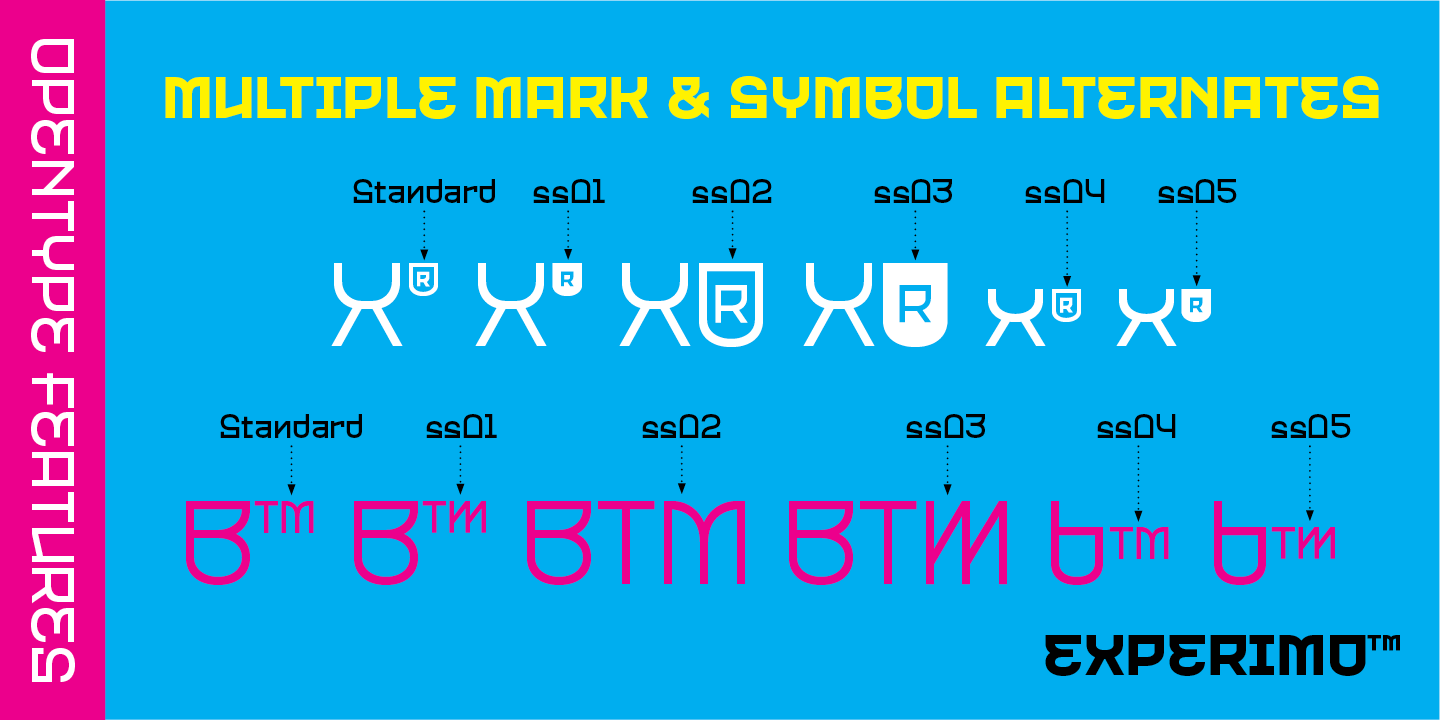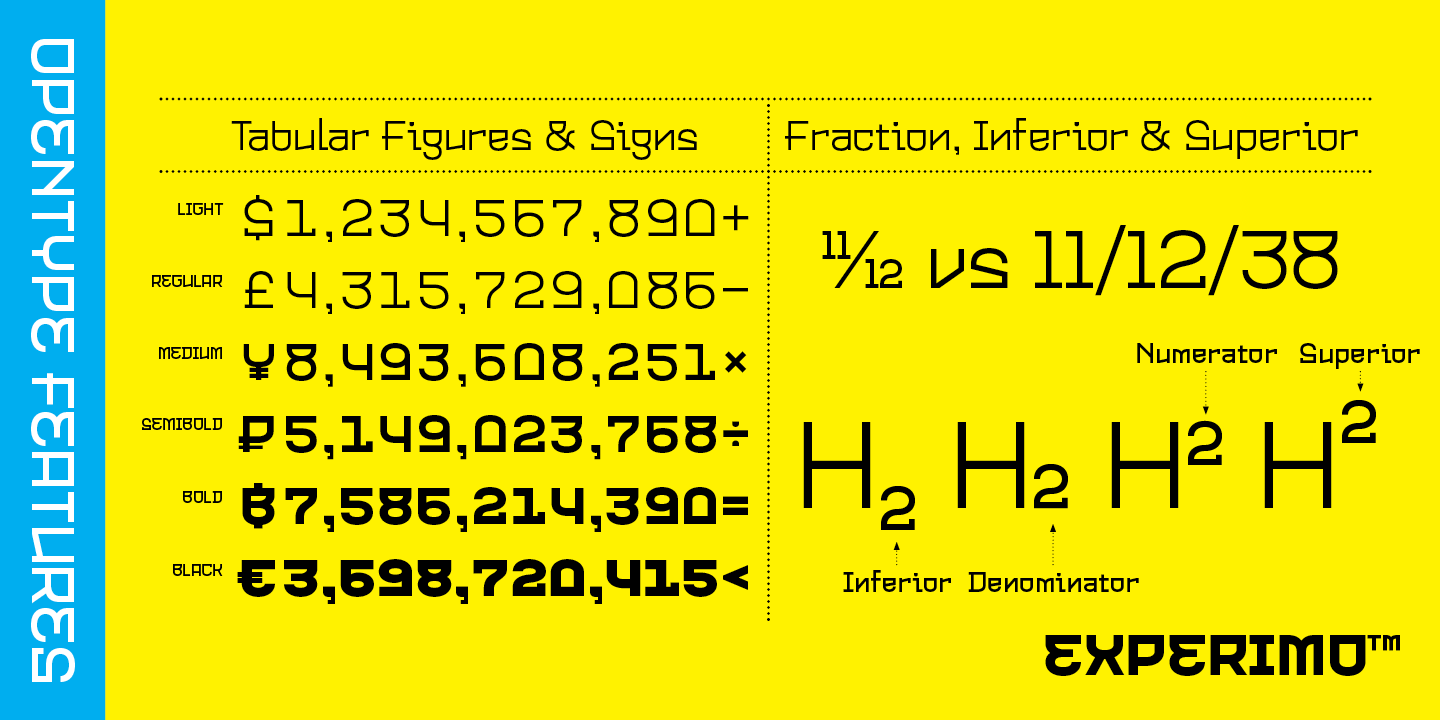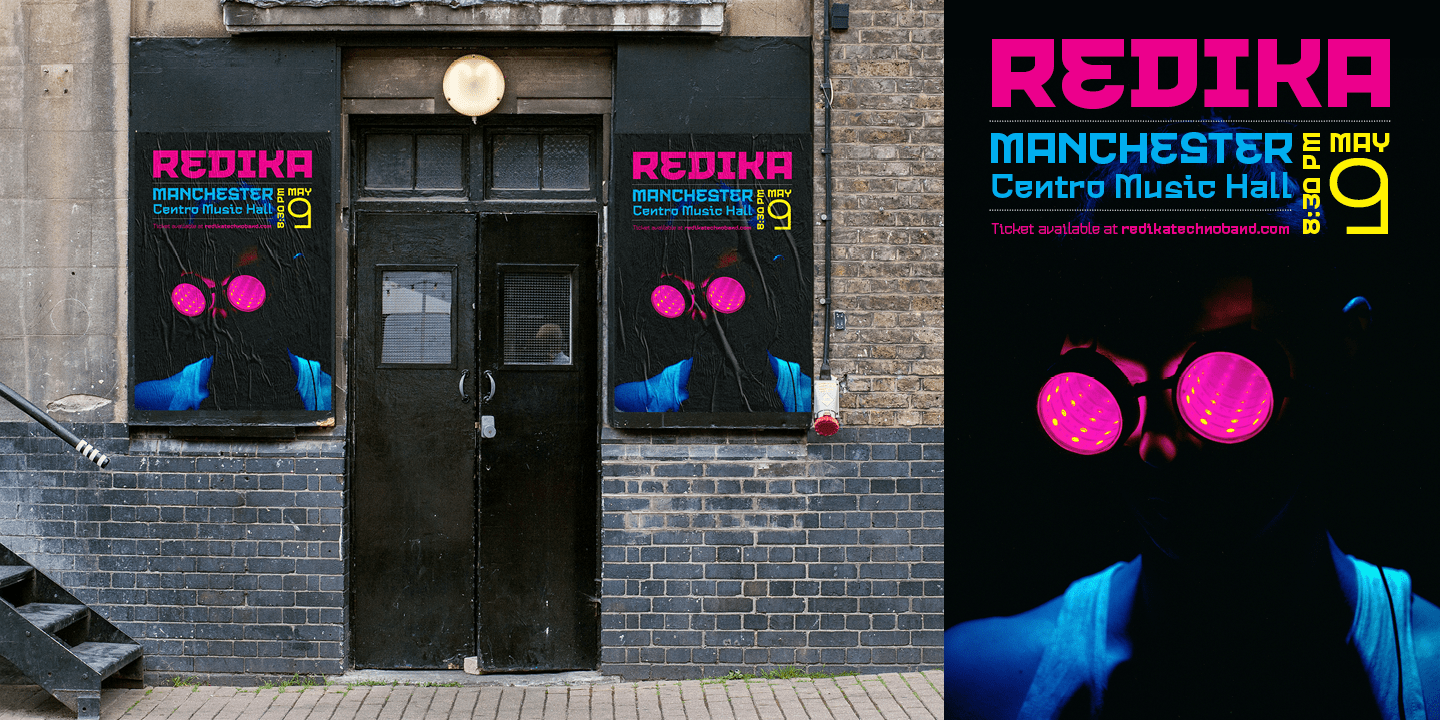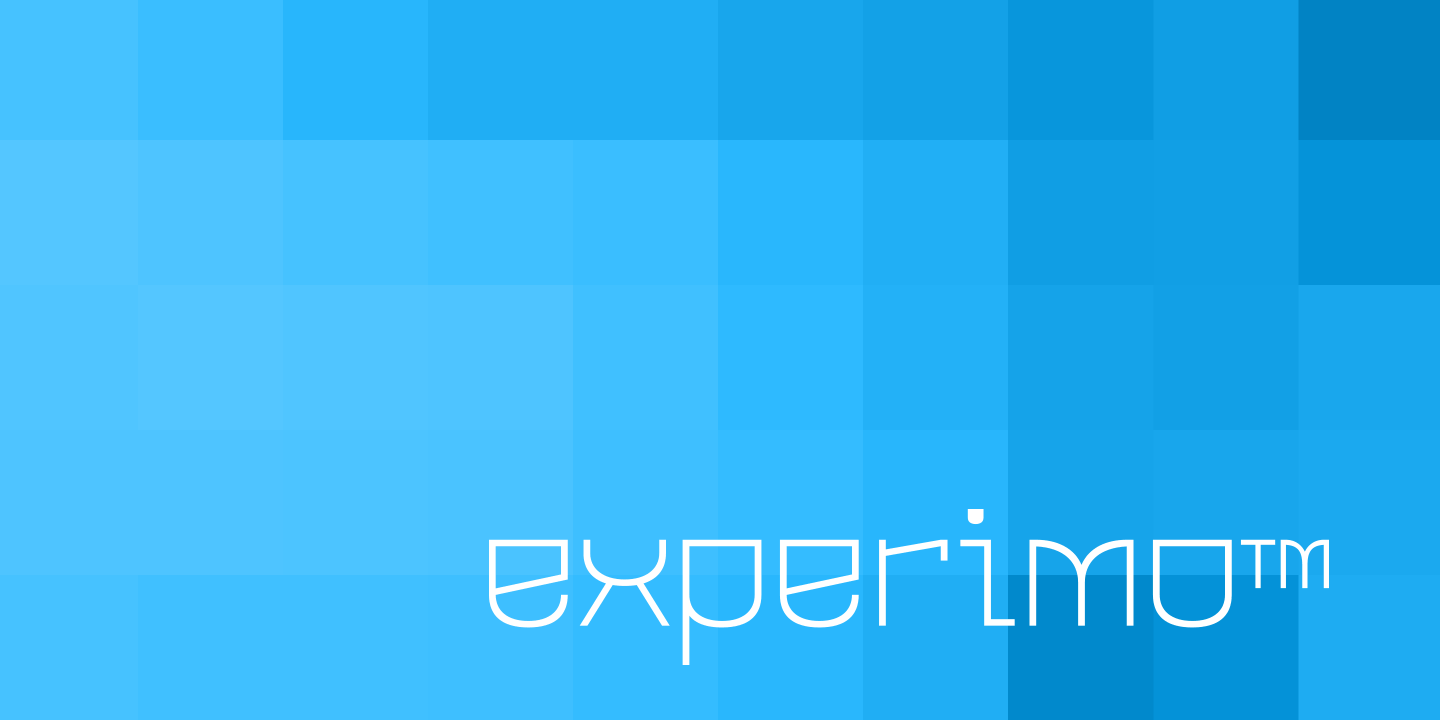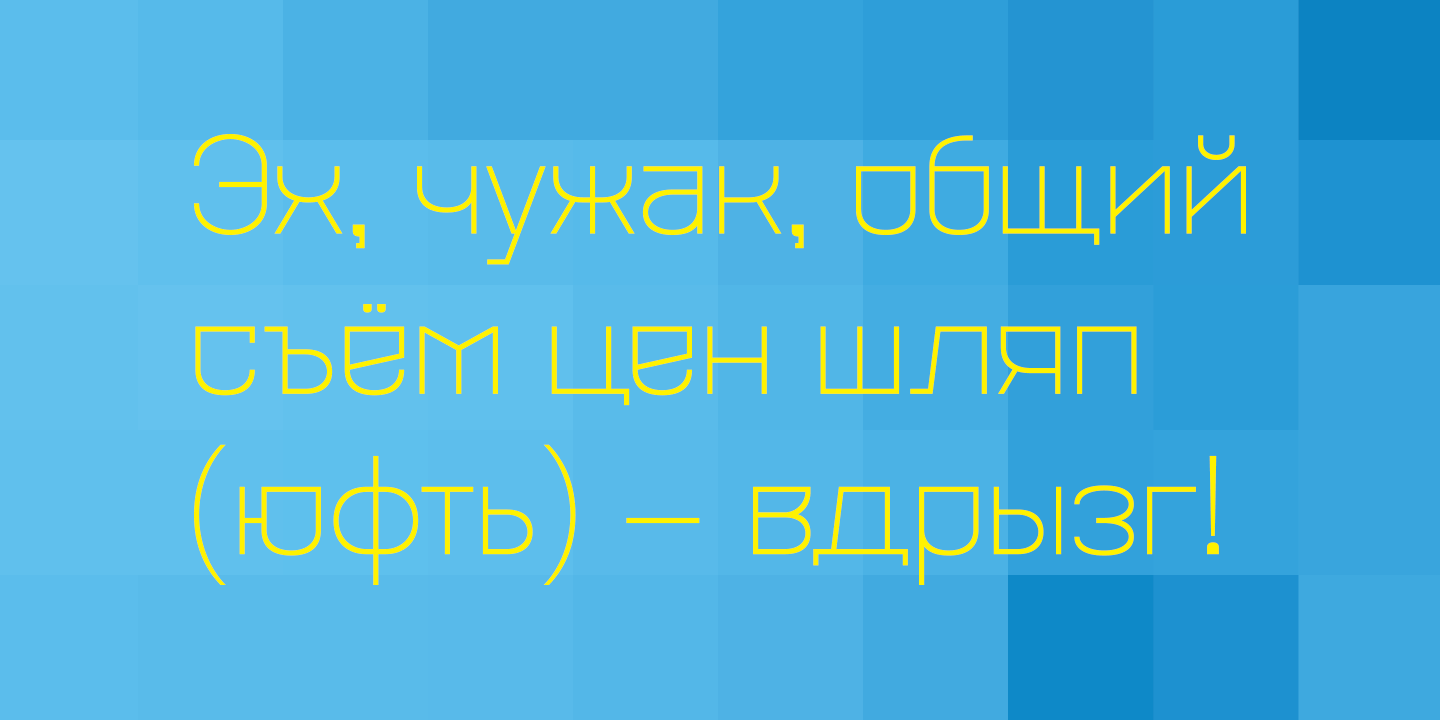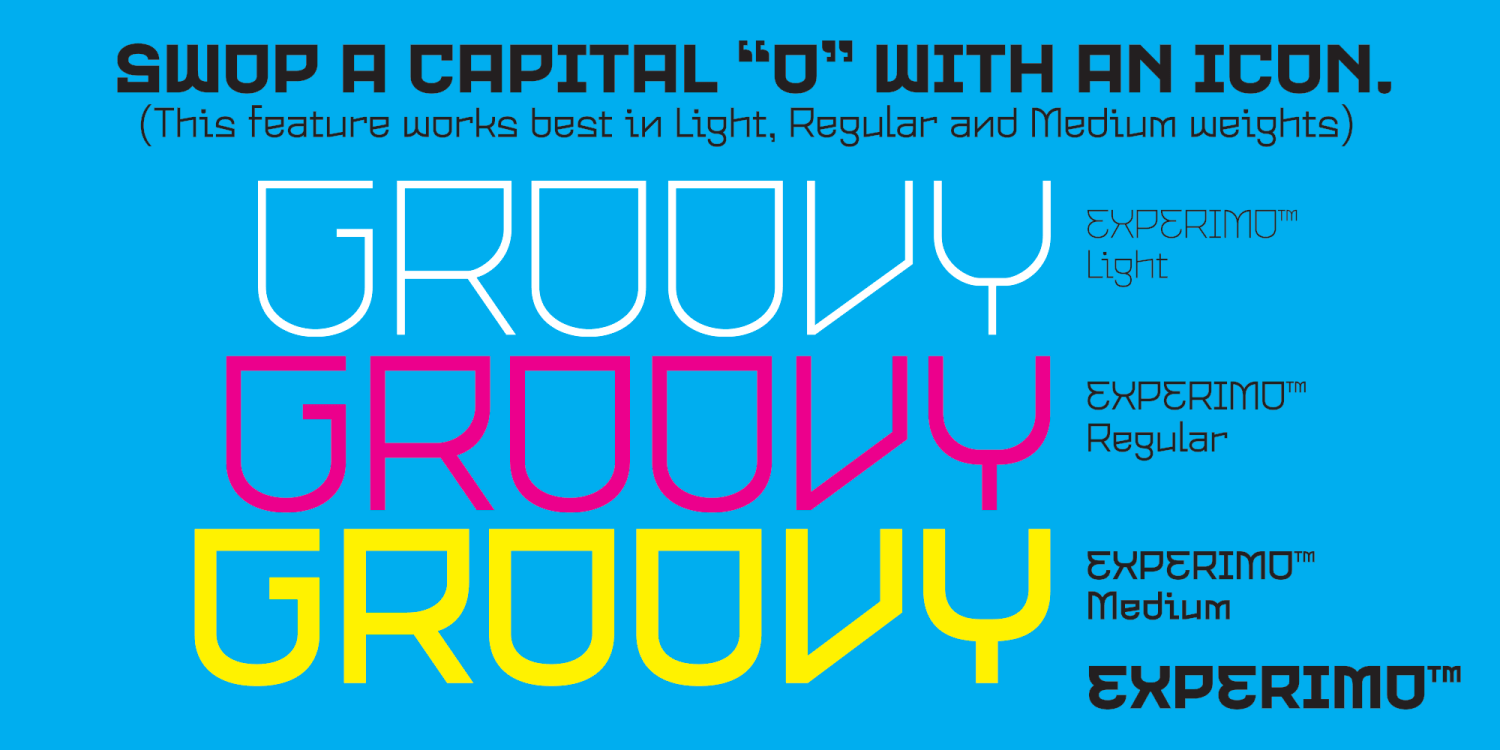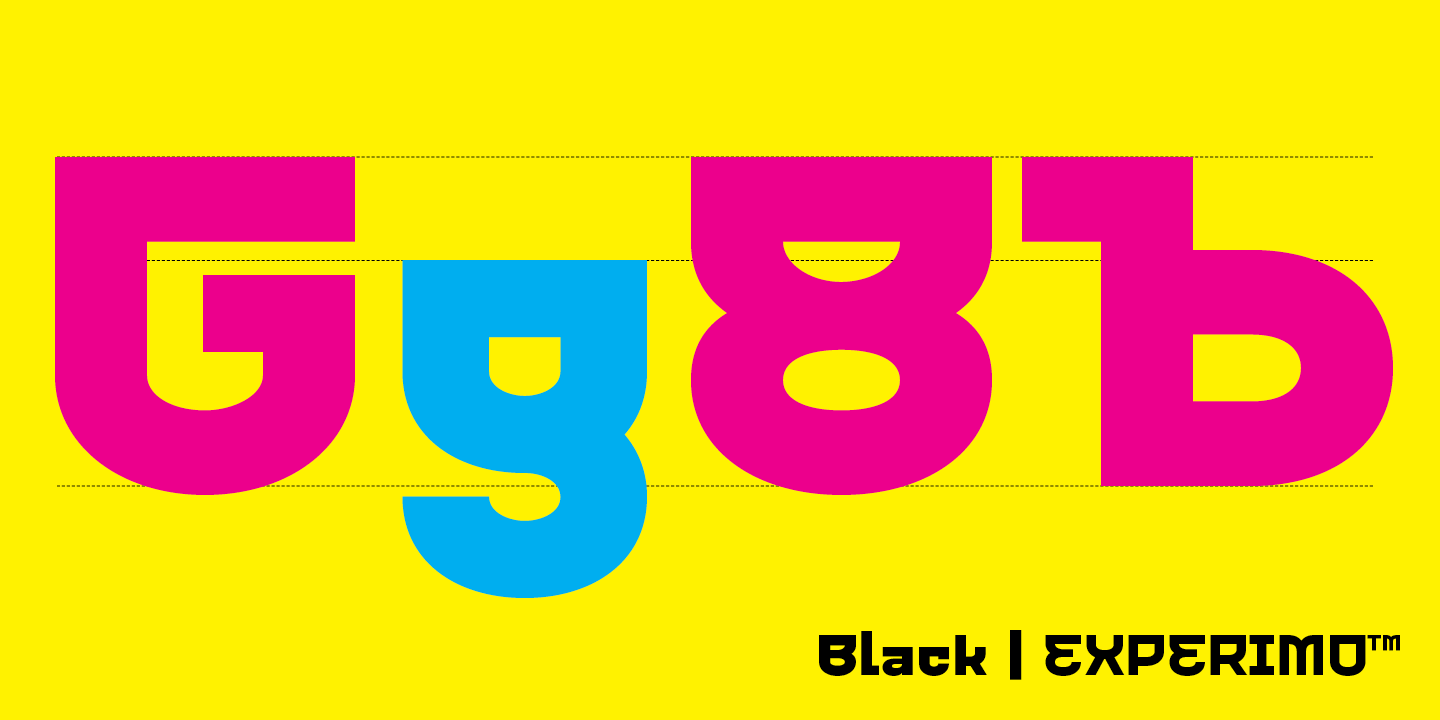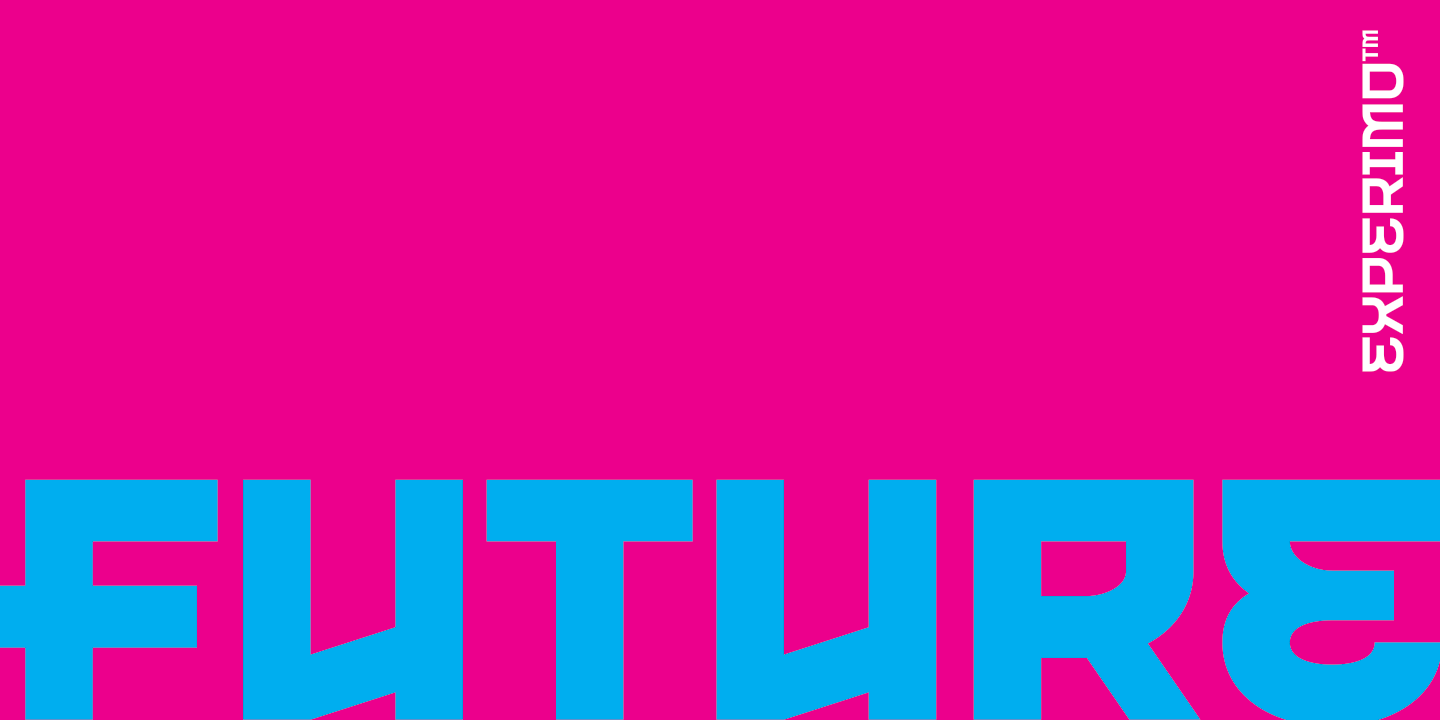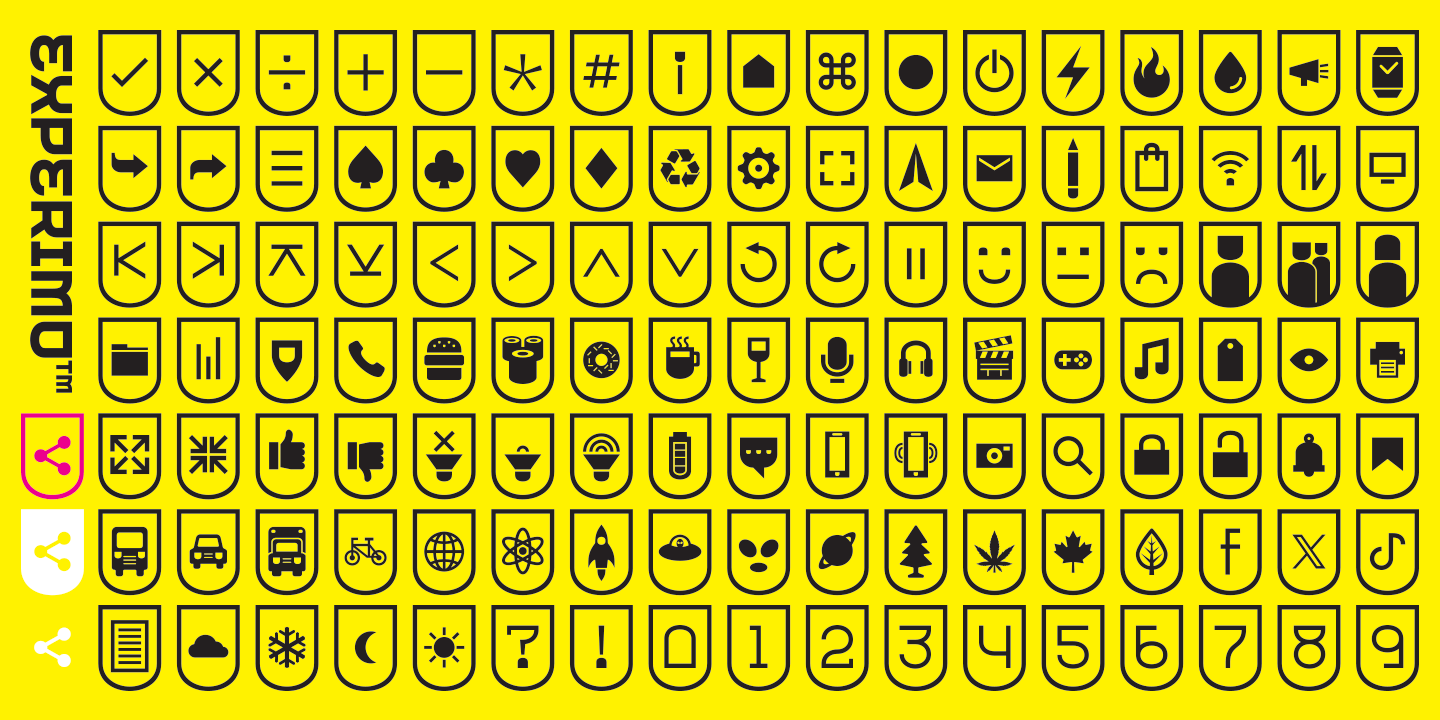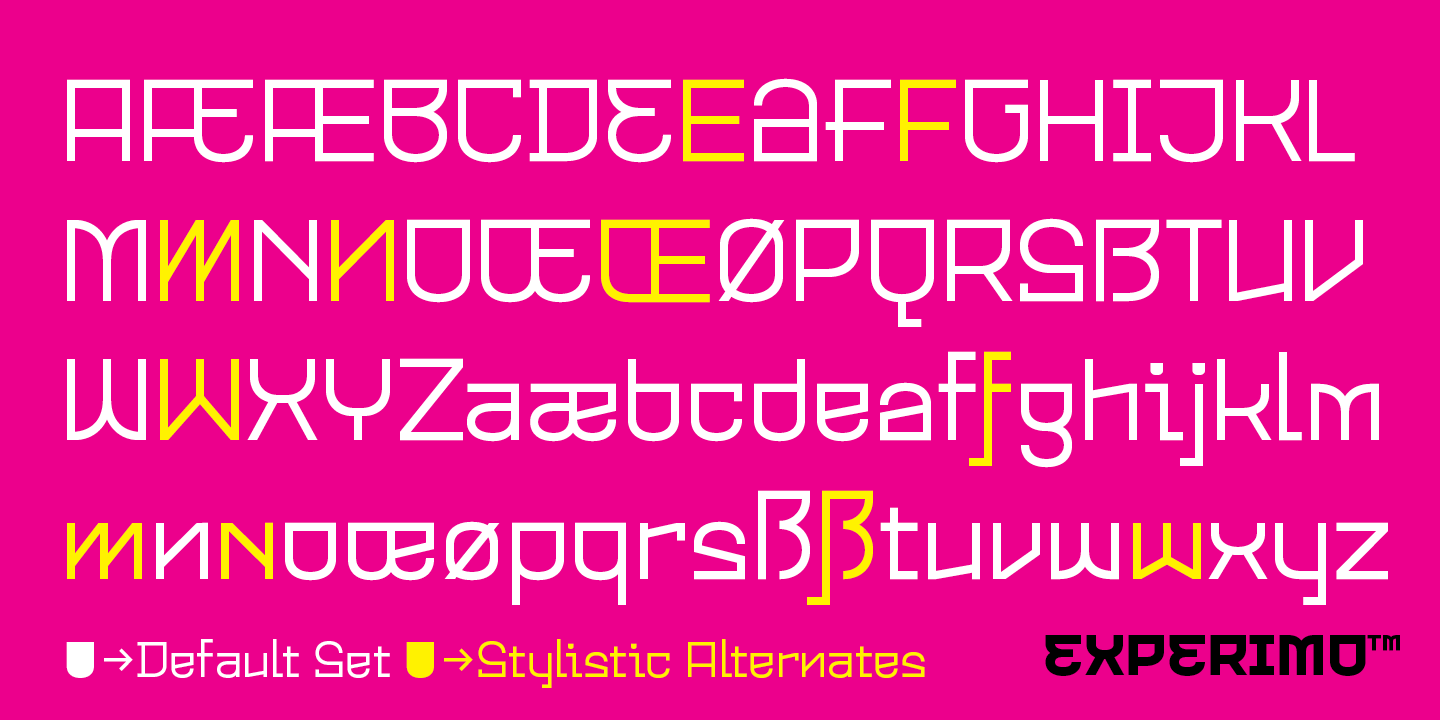
Experimo
Experimo™ is an experimental display sans serif font family that embraces unconventional geometry, celebrating the juxtaposed contrast between round and rectangular forms. It’s designed to be playful, distinct, and boldly modern, conveying a truly futuristic feel for any project.
Experience the Features:
- O-Substitution Icons: A unique feature allowing for automatic substitution of the letter ‘O’ with over 100 dedicated icons, adding playful visual flair to your display type.
- Robust Family: Comes in 6 weights and styles, offering versatility for large-scale branding down to small text.
- Massive Glyph Count: Features over 1,325 glyphs, providing extensive coverage and creative freedom.
- Global Reach: Supports both Latin and Cyrillic languages.
- Design-Ready Extras: Includes a wide range of stylistic alternatives and powerful Opentype features such as case-sensitive marks, punctuations, and mathematical symbols.
- Bonus UX/UI Advantage: Loaded with over 100 essential UX/UI icons (separate from the O-substitution icons), each available in three different design options.
Why Choose Experimo™?
Experimo™ is more than just a quirky typeface—it’s a workflow solution. Its extensive Opentype features and iconic substitutions are designed to enhance your user experience, simplify your workflow, and provide limitless typography options.